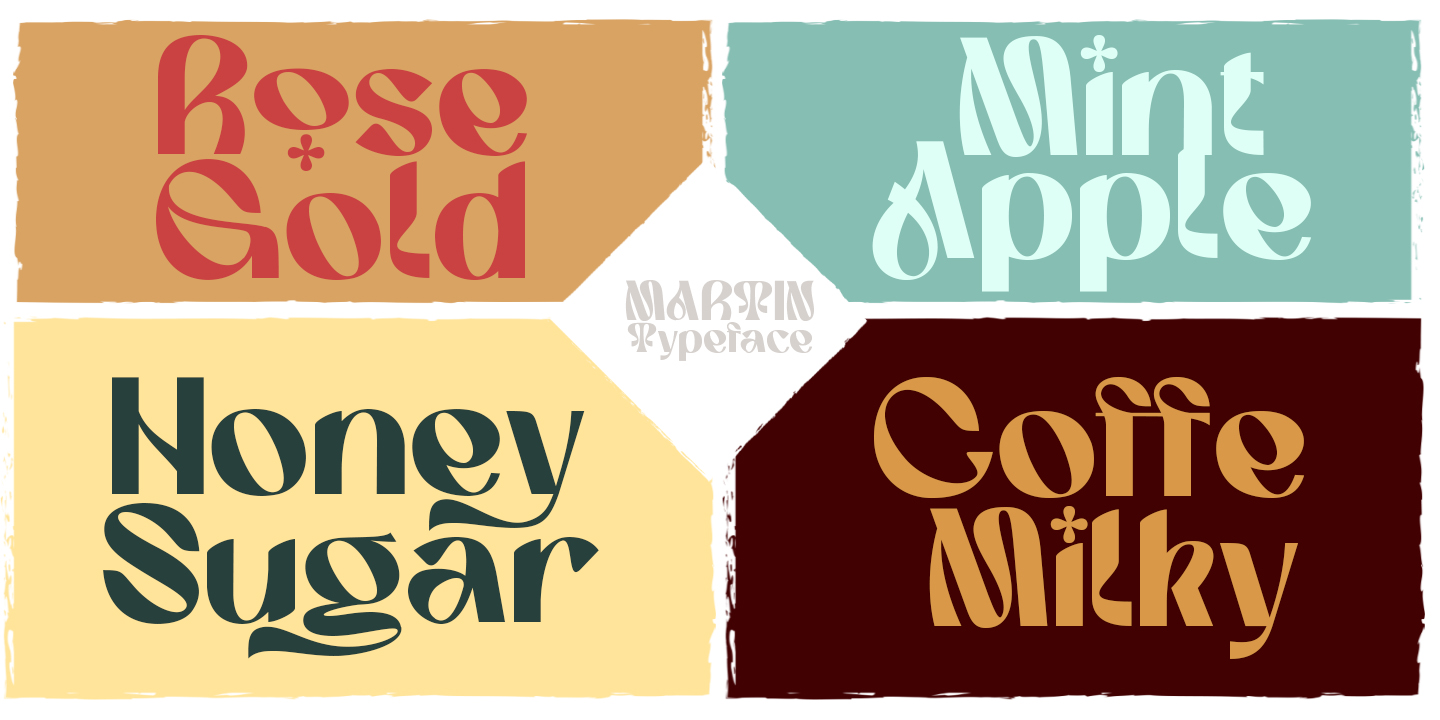
Martin Groovy Sans Font
This is a groovy sans typeface, use this font for any branding, product packaging, invitation, quotes, t-shirt, label, poster, logo etc.